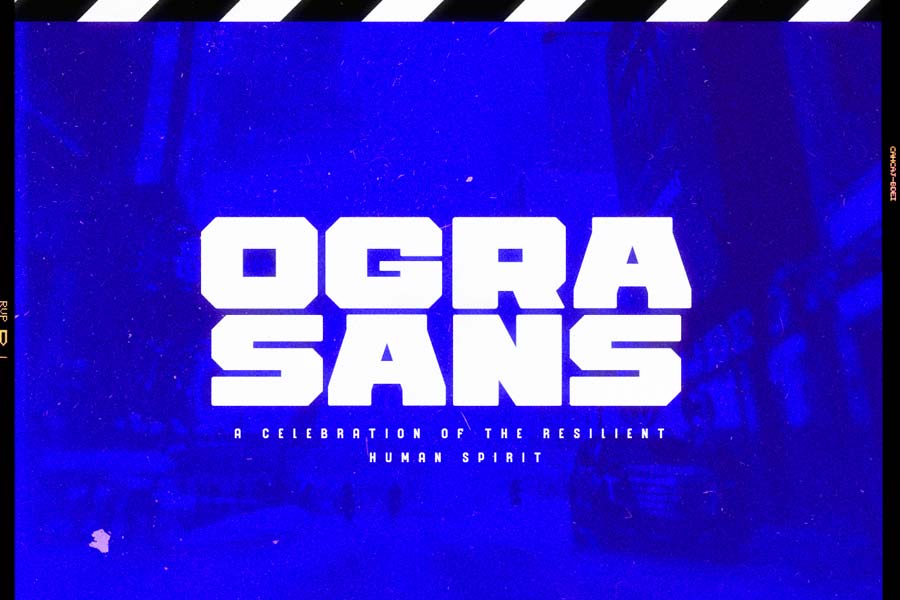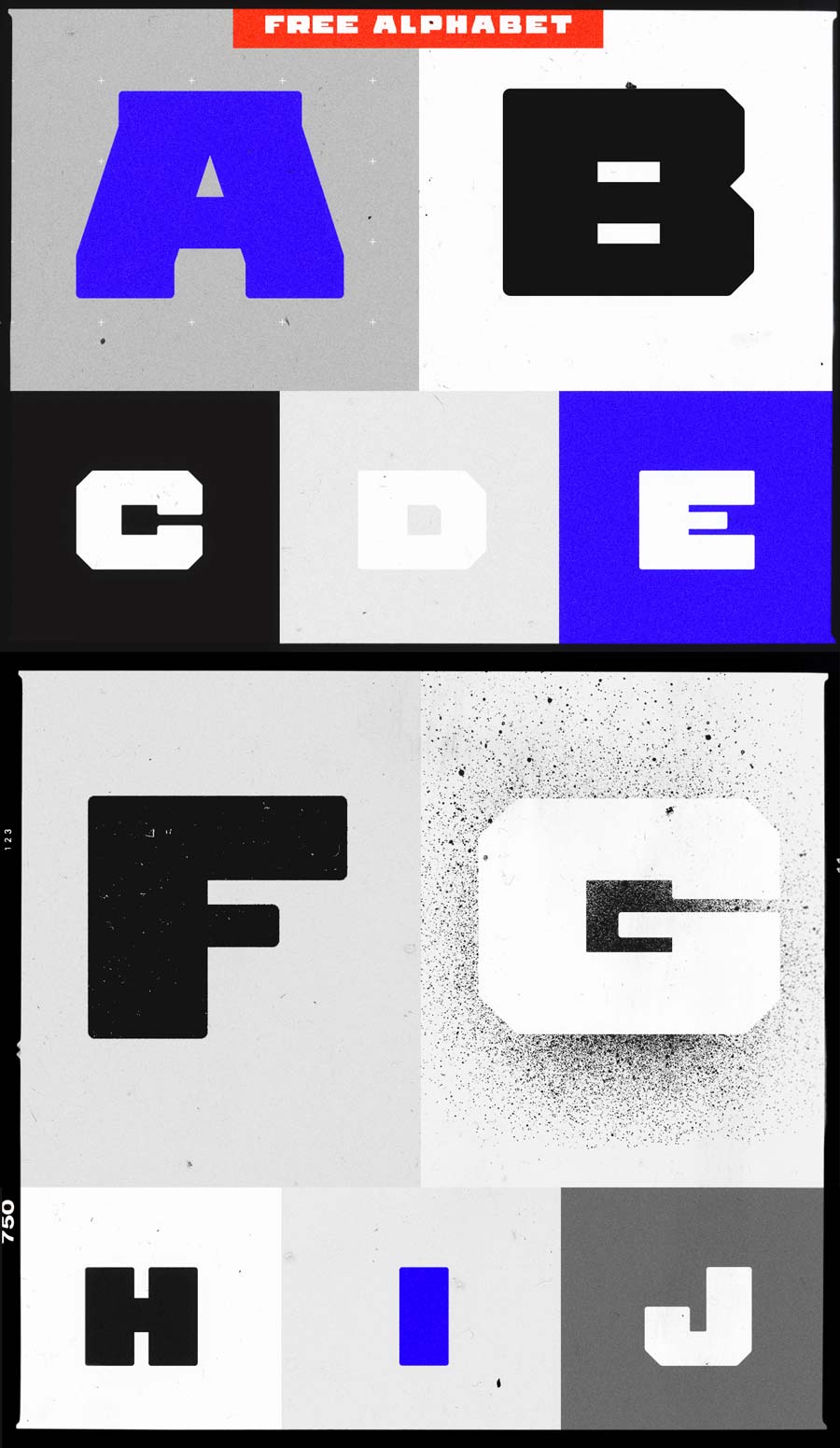
Ogra Sans is a blocky bold font that gives a sense of industrial feel. The letters are mainly constructed with straight and diagonal lines, giving a strong and rigid feel but soften with subtle soft rounded edges.
Ogra Sans works great as a display font on a large displays, promotional posters and banners and more for active, sports or street genres. You can download this font for free that comes with alphabets only, you will need to purchase to obtain the full commercial license.